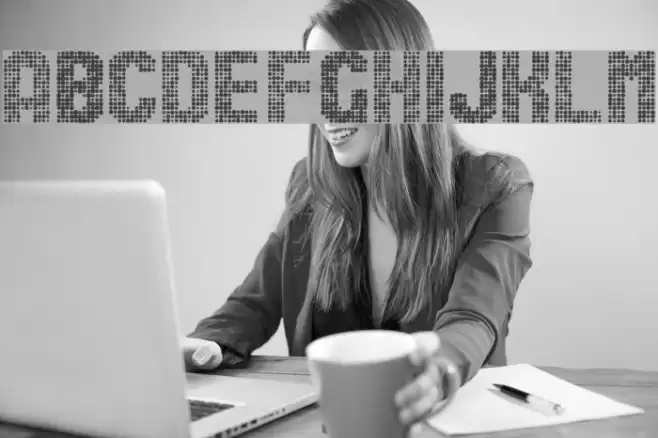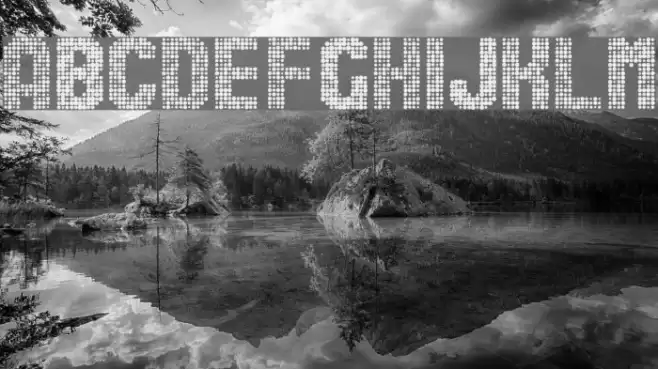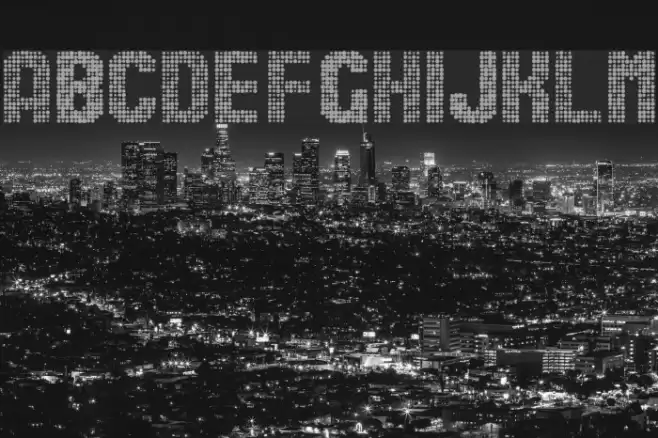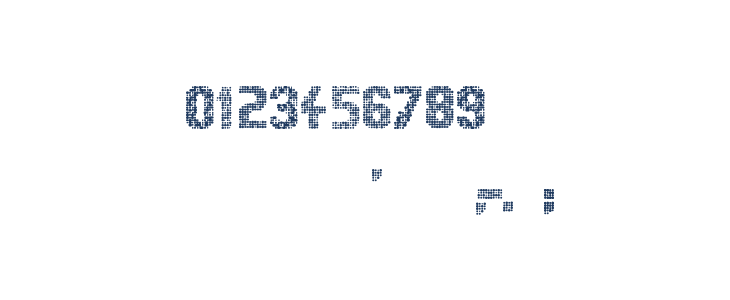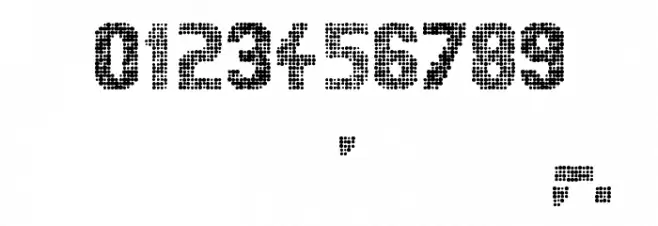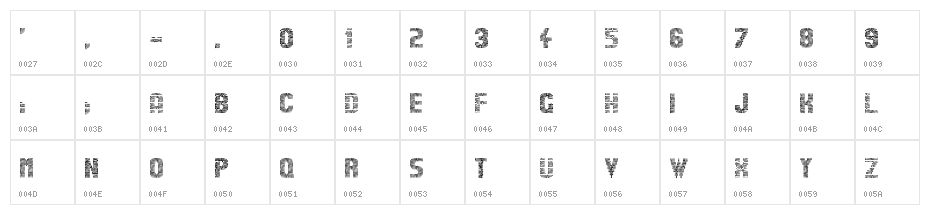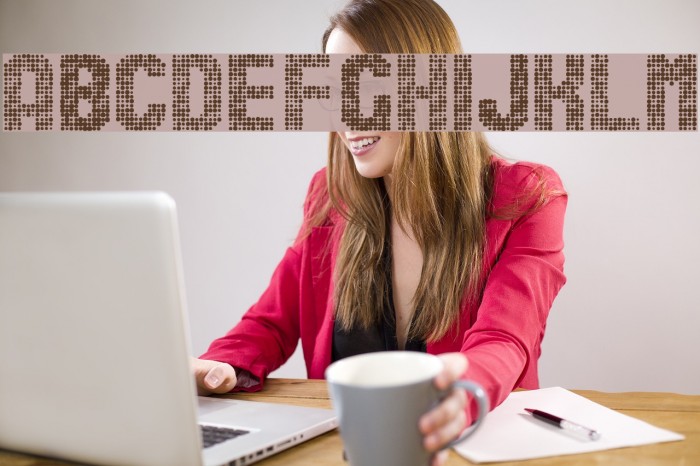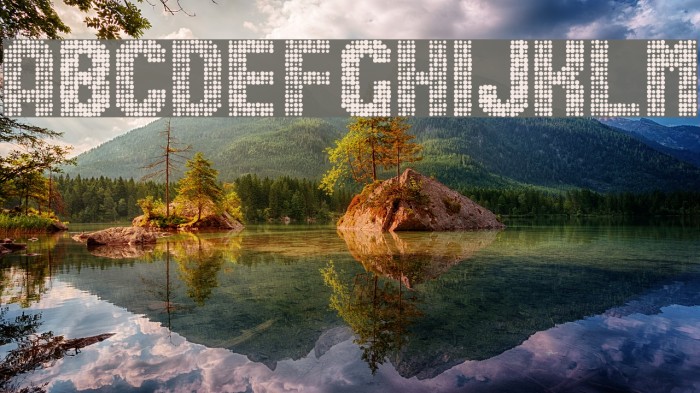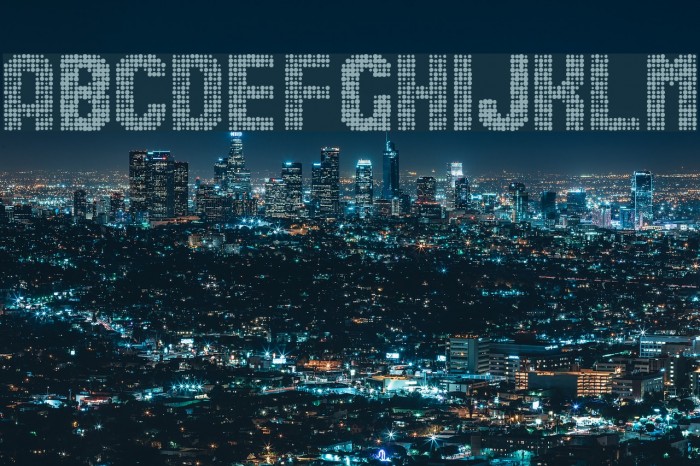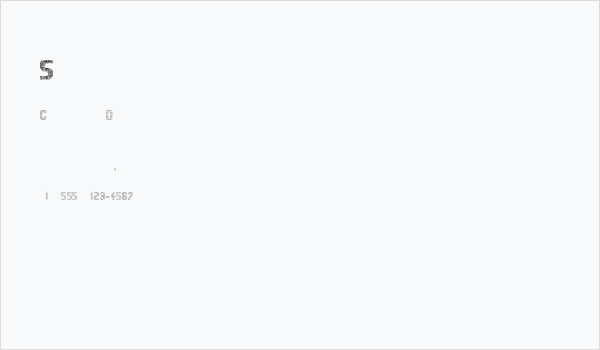
Stardots Font
Stardots Description
This font features a unique design composed entirely of small dots forming each character. The uppercase letters, numbers, and special characters are all constructed with a consistent dot pattern, creating a cohesive and visually striking appearance. The font's dotted style gives it a digital or pixelated look, reminiscent of early digital displays or LED signage. The spacing between the dots is uniform, ensuring readability while maintaining the decorative aspect. This font is ideal for projects that require a modern, tech-inspired aesthetic or a playful, creative touch.
A dotted, pixelated font with a modern, tech-inspired aesthetic from Uncategorized fonts.
- Proposed Projects: Ideal for digital displays, tech-themed designs, creative posters, and modern branding.
- Use Case: Logos, Headlines, Digital displays